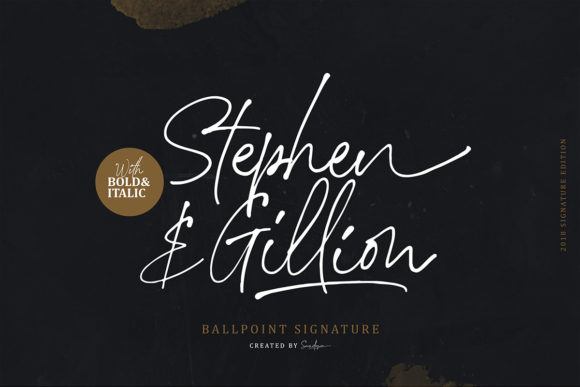
Introducing Stephen & Gillion, the captivating and alluring signature script font that will add a touch of elegance and charm to your creative projects. With its natural writing style and enchanting hearts adorning the letters, this font is a true work of art.
Step into a world of visual delight as you explore the boundless possibilities of Stephen & Gillion. Let your imagination soar as you craft stunning fashion designs that exude sophistication and style. Create wedding invitations that radiate love and romance, featuring the delicate strokes of this exquisite script. Transform your handwritten quotes into heartfelt expressions of art, leaving a lasting impression on your readers.
Whether you're a seasoned designer or just starting your creative journey, Stephen & Gillion is the perfect companion for your artistic endeavors. Its versatile nature allows you to effortlessly elevate any project, adding a touch of refinement and uniqueness. Dive into the world of typography and let your creativity shine with this enchanting script font.
Unleash the power of artistic expression with Stephen & Gillion, the font that captures the essence of elegance and charm. Its heartfelt strokes and captivating hearts will leave an indelible mark on your designs, making them truly unforgettable. Embrace the beauty of handwritten artistry and let your imagination run wild.